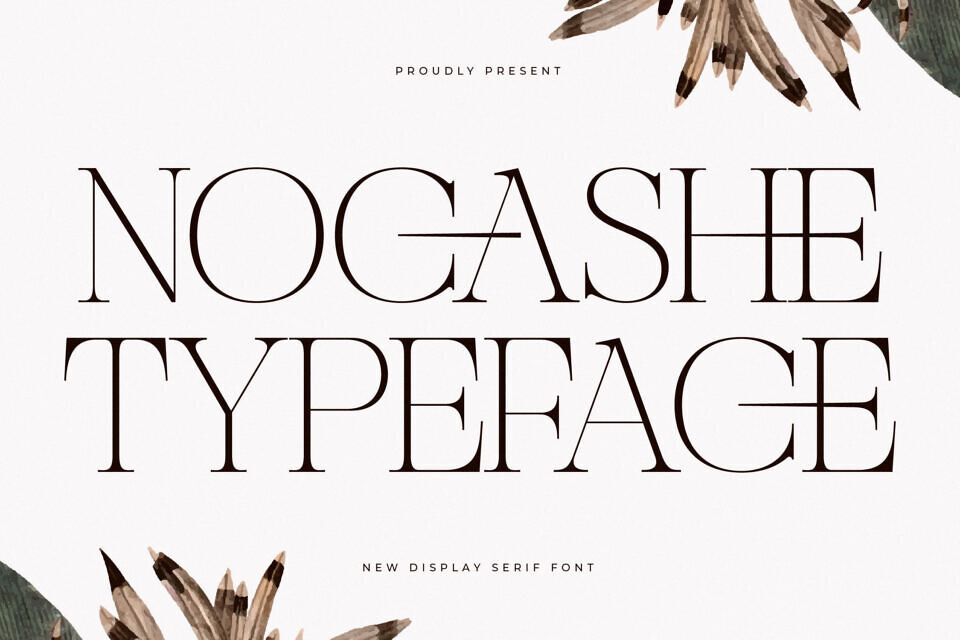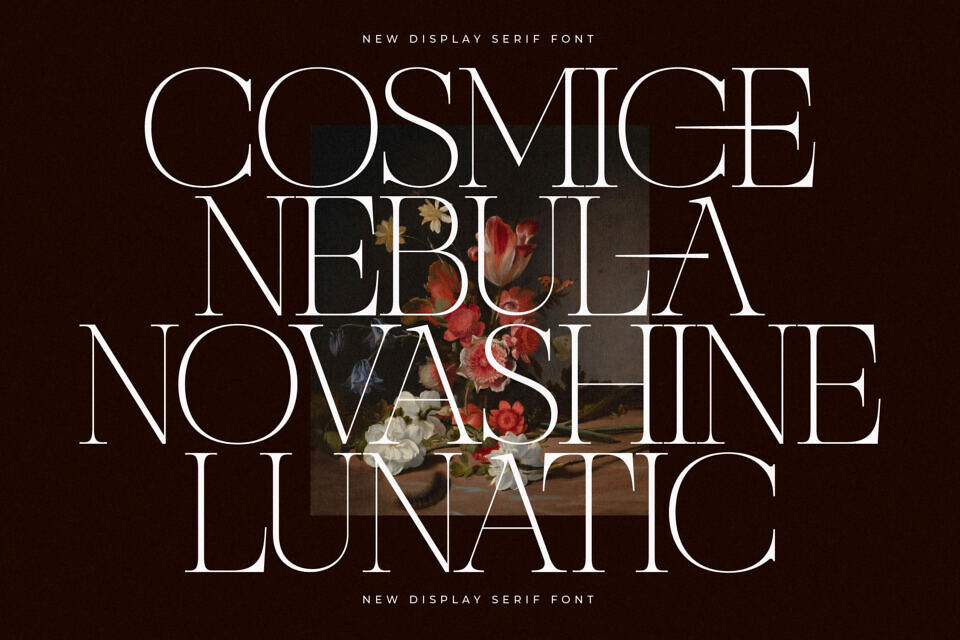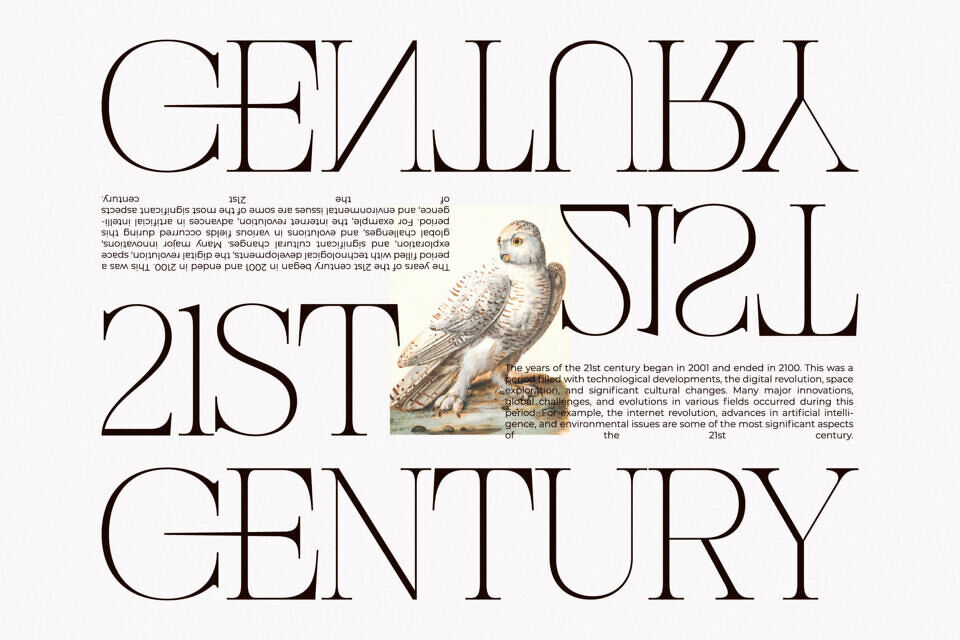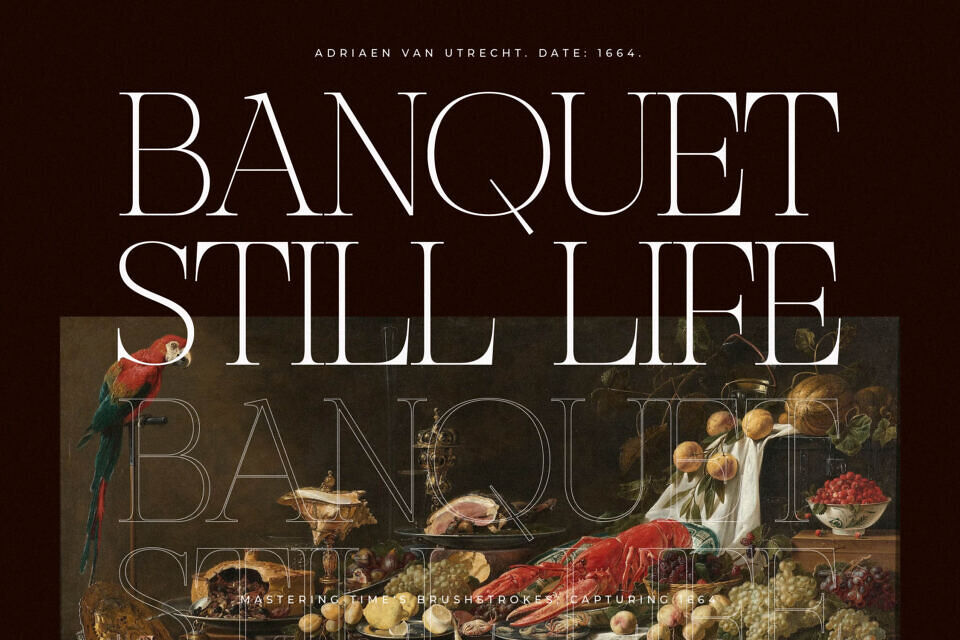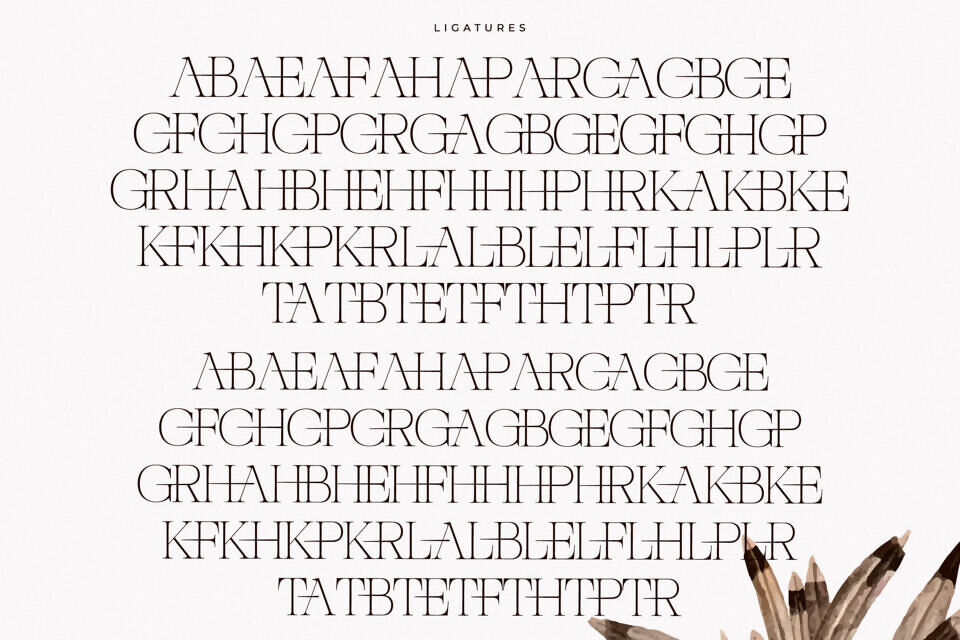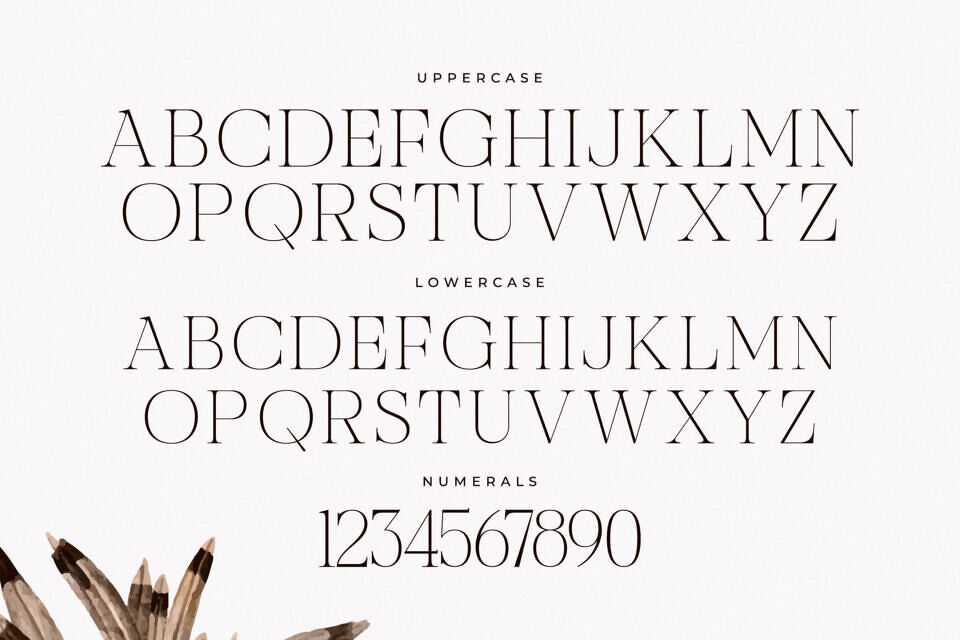
Nocashe Font
Nocashe is a distinctive, modern display serif typeface. Its classic yet contemporary style makes it ideal for elegant and luxurious logos, titles, and fashion branding, as well as magazines, clothing, and quotes, evoking elegance and sophistication.